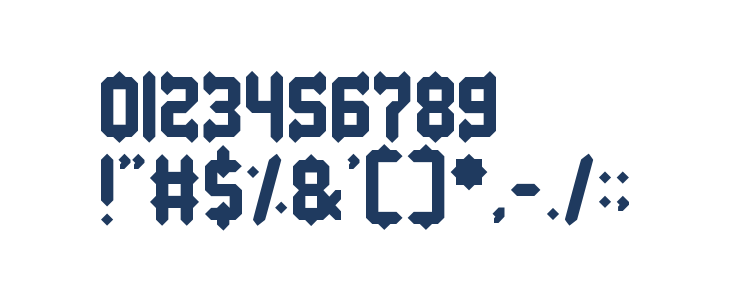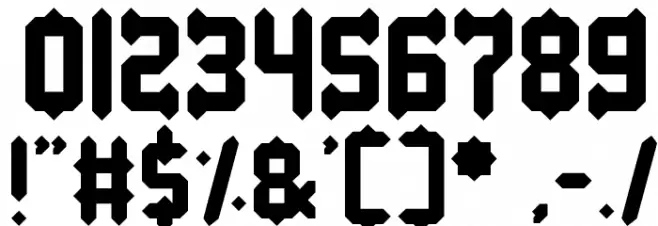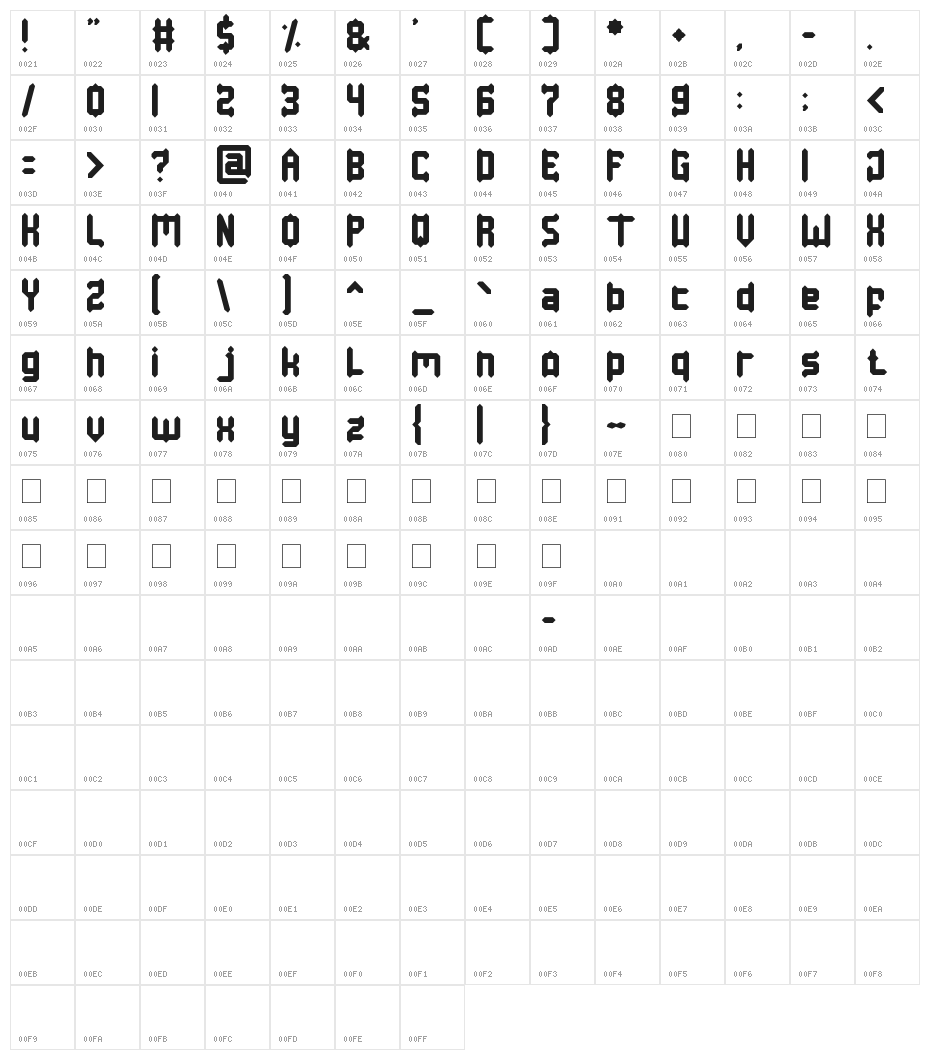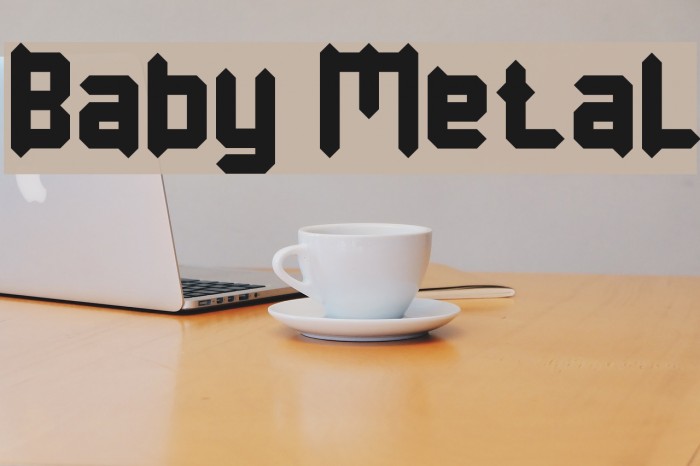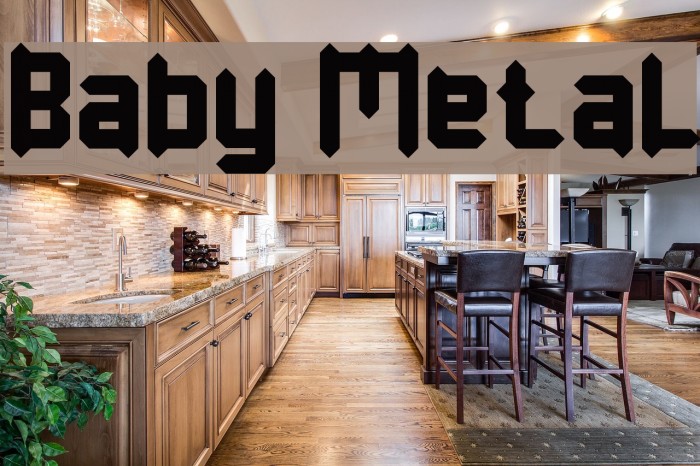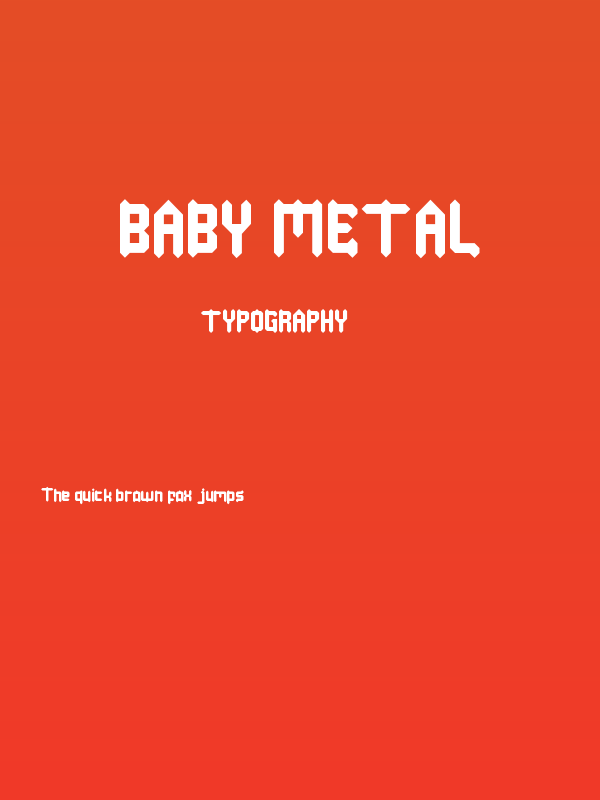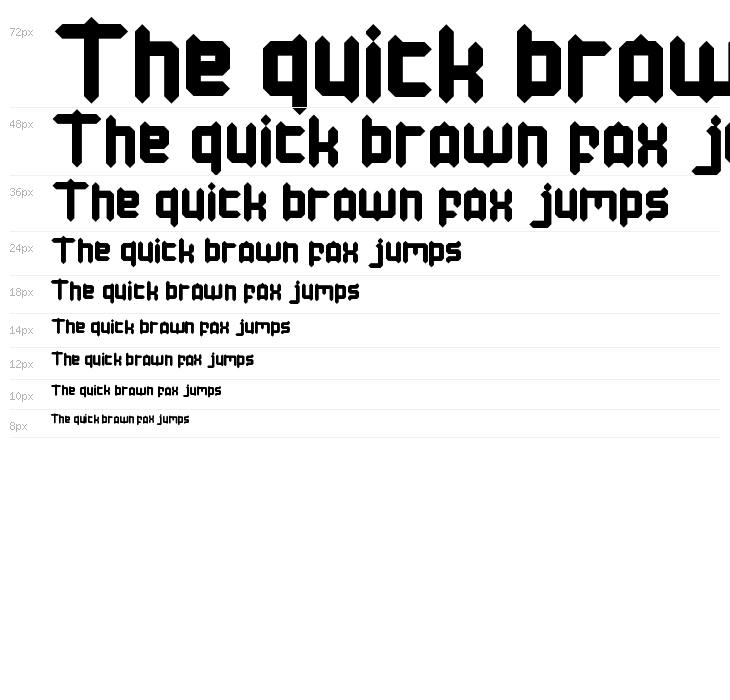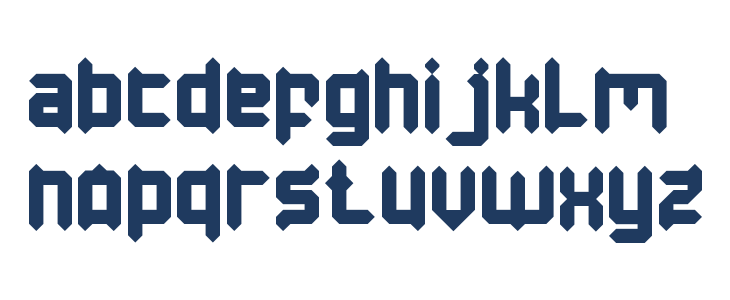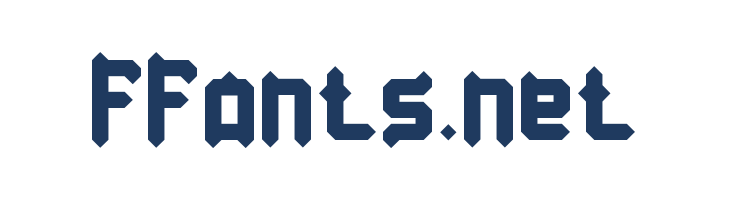
Baby Metal Font
Baby Metal Description
This font features a bold, geometric design with sharp angles and a blocky appearance. The uppercase and lowercase letters maintain a consistent height, giving it a uniform look. The numbers and special characters follow the same angular style, creating a cohesive and striking visual impact. Its distinct, edgy appearance makes it suitable for projects that require a modern and bold statement. The font's strong lines and lack of curves give it a futuristic and industrial feel, perfect for attention-grabbing headlines or logos.
| Proposed Projects | Ideal for music album covers, event posters, video game titles, and branding for tech companies. |